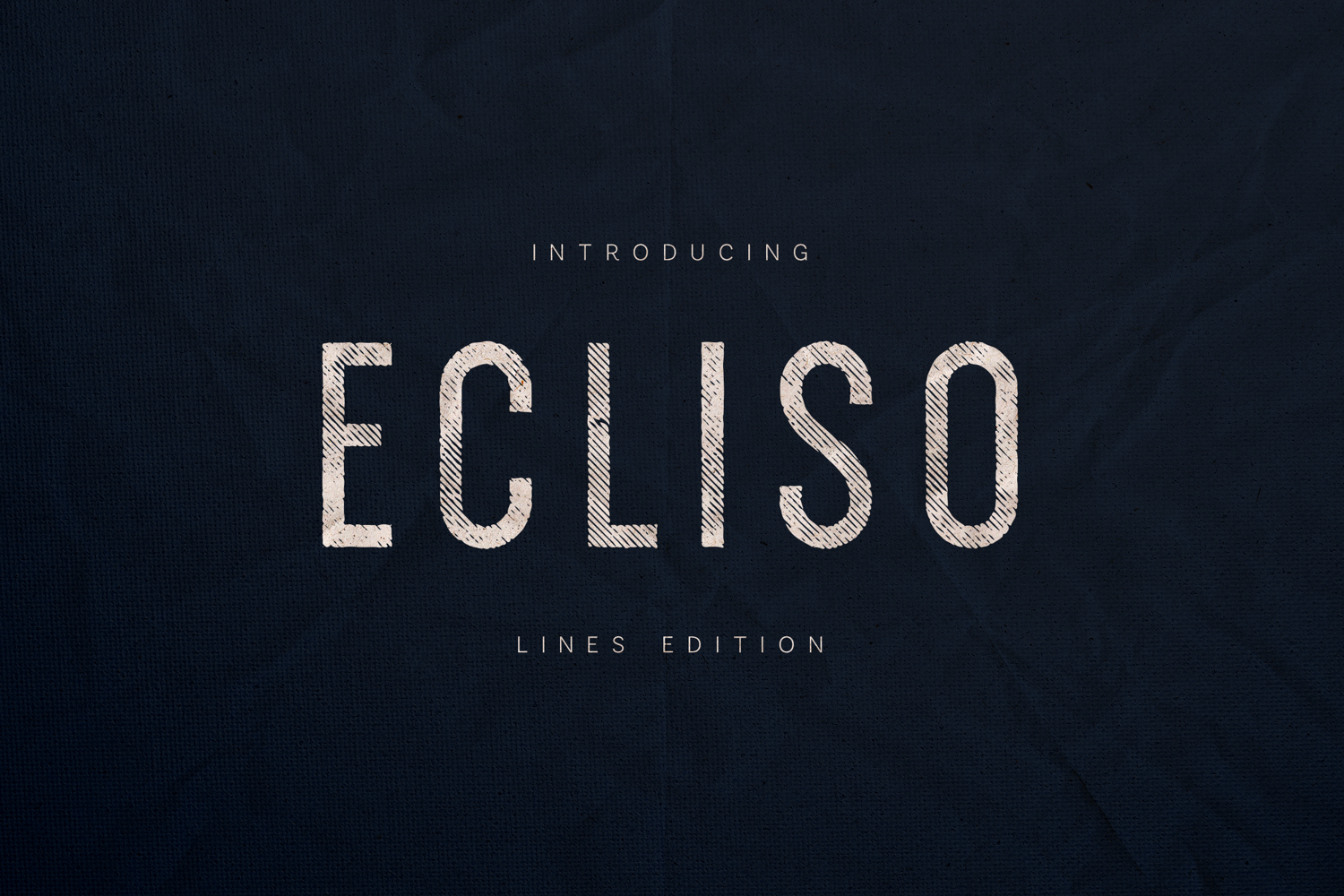
Ecliso Lines Edition Modern Display Sans Serif Font
Ecliso – Lines Edition is a modern display sans serif font designed for bold statements and graphic-driven typography. Featuring a distinctive lined texture and tall, confident letterforms, Ecliso brings depth, rhythm, and visual energy to contemporary design projects.
The Lines Edition adds a handcrafted, sketch-like character while maintaining strong readability and structure. It’s ideal for posters, headlines, branding, album covers, packaging, apparel, and editorial designs that need impact with personality.
Ecliso balances raw texture with clean geometry, making it versatile for both expressive and controlled layouts. The font performs especially well at large sizes, where its linear detailing and bold proportions truly shine.
Ecliso includes a full character set with extensive multilingual support, numerals, punctuation, and symbols, making it suitable for professional use across print and digital platforms.
- Posters & Headlines
- Branding & Visual Identity
- Album Covers & Music Artwork
- Packaging & Apparel
- Editorial & Magazine Design
- Streetwear & Cultural Projects
- Expressive Typography Systems